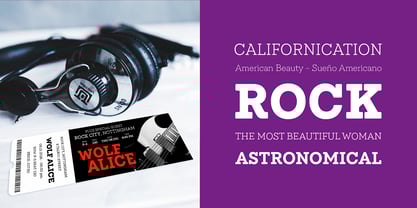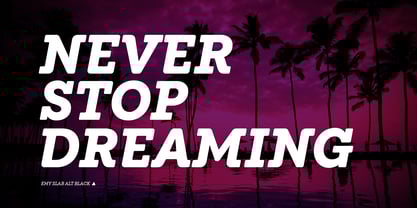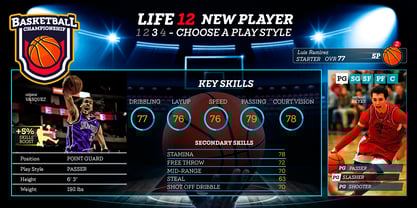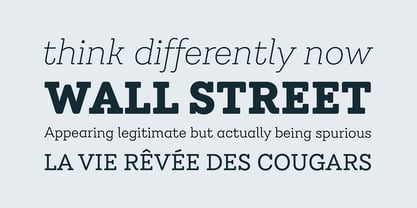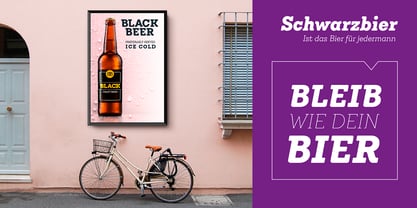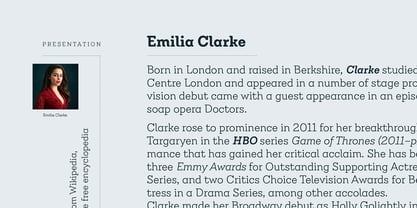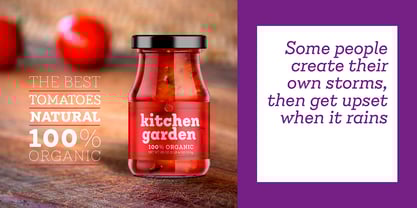
Emy Slab Font
This Emy Slab Font is perfect for vintage newspaper layouts, retro magazine designs, classic editorial publications, traditional book typography, heritage brand communications, nostalgic advertising campaigns, old-fashioned signage systems, vintage poster designs, classic journalism materials, and timeless publishing applications.
What makes this Emy Slab Font exciting is its classic editorial strength that captures the authoritative presence and timeless reliability of traditional newspaper typography. The font features robust slab serif letterforms with editorial characteristics that convey journalistic authority, publishing excellence, and vintage credibility. Its classic character and editorial-inspired design make it ideal for brands seeking to communicate traditional publishing, editorial excellence, and vintage authority in media and publishing markets.
The Emy Slab Font family includes light, regular, medium, and bold weights with editorial alternates, vintage variants, and classic flourishes. This comprehensive publishing font family provides designers with authoritative typographic tools to create traditional compositions while maintaining the editorial character essential for publishing brands and vintage media communications.
Publishing houses and vintage brands consistently choose Emy Slab Font Free Download for projects requiring authentic editorial appeal and classic publishing credibility. This font's distinctive traditional character perfectly captures the journalistic authority and vintage excellence that resonate with audiences who appreciate classic publishing, editorial tradition, and brands that embody timeless media excellence and vintage authenticity.
The authoritative construction of Emy Slab Font showcases solidly designed letterforms with editorial proportions that ensure exceptional readability across all publishing applications. Its classic appearance and vintage character create memorable impressions while maintaining the clarity necessary for effective editorial communication and traditional publishing materials.
Professional designers appreciate how Emy Slab Font brings immediate editorial authenticity and vintage authority to brand communications. The font's traditional nature allows organizations to communicate publishing excellence and editorial credibility while maintaining the professional quality necessary for effective positioning in publishing and vintage media markets.
The timeless appeal of Emy Slab Font makes it particularly effective for brands emphasizing editorial tradition, vintage publishing, and classic journalism. Its authoritative character resonates strongly with audiences who appreciate traditional media, editorial excellence, and brands that represent the enduring strength and reliability of classic publishing traditions.
Whether developing materials for traditional publishing companies or creating vintage editorial designs, Emy Slab Font Free Download provides the authoritative typographic foundation that editorial brands need to communicate their publishing excellence, vintage authenticity, and the timeless authority that defines classic journalism and traditional publishing achievement.